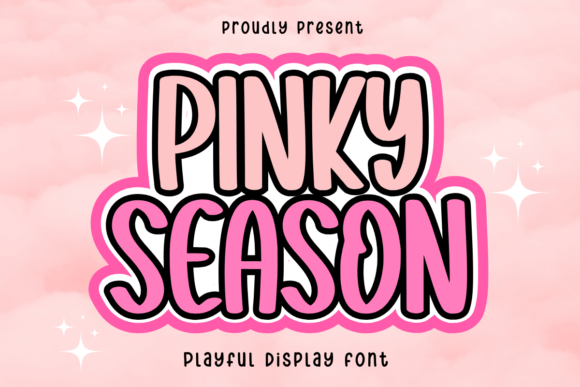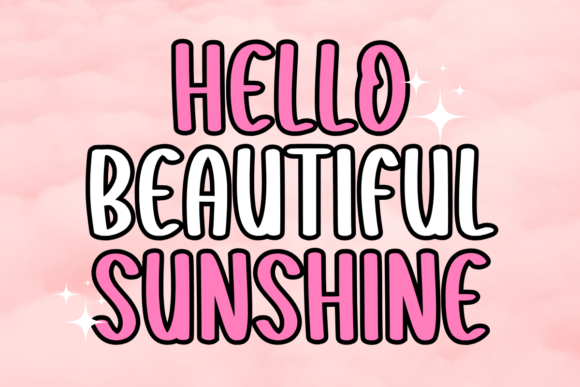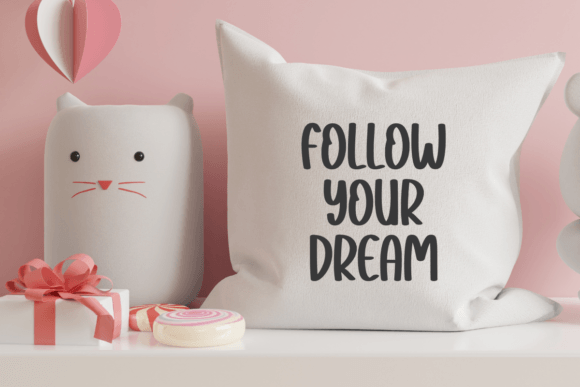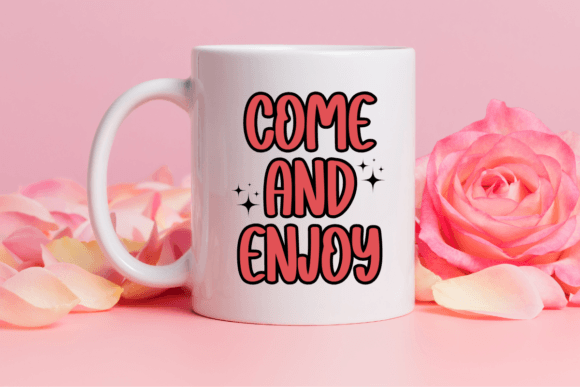
Pinky Season Font: A Cute Display Font for Cricut & Playful Designs
About the Pinky Season Font
Experience the unique personality of Pinky Season Font, a font designed for impact. Pinky Season is designed in a modern and playful display font . This would be awesome for your fun projects or diary planner. Let’s try it for your perfect project like Easter, back to school, wedding, party decorations, invitations, Fall,Summer,Winter, Halloween, Christmas, posters, blogs, clothing, poster,banner,headlines,merchandise,kids related designs, greeting cards, social media posts, or anything that requires a friendly touch. Add it now to your font library.
Pinky Season’s playful energy makes it ideal for headlines, short text blocks on posters, and branding projects needing a friendly, approachable feel. It excels in packaging design for products targeting a younger demographic, and works well in social media graphics and invitations. However, its decorative nature makes it unsuitable for body text or UI elements where readability is paramount. Avoid using it for long paragraphs or in small sizes.
Consider pairing Pinky Season with a clean sans-serif like Open Sans for body copy to provide a strong contrast and enhance readability. For a more sophisticated look, a classic serif such as Garamond might create a visually interesting juxtaposition of styles. Alternatively, a minimalist geometric sans-serif could add a touch of modern edge.
The font’s overall personality is undeniably cheerful and slightly whimsical, making it a strong choice for projects aiming for a light-hearted and approachable aesthetic.